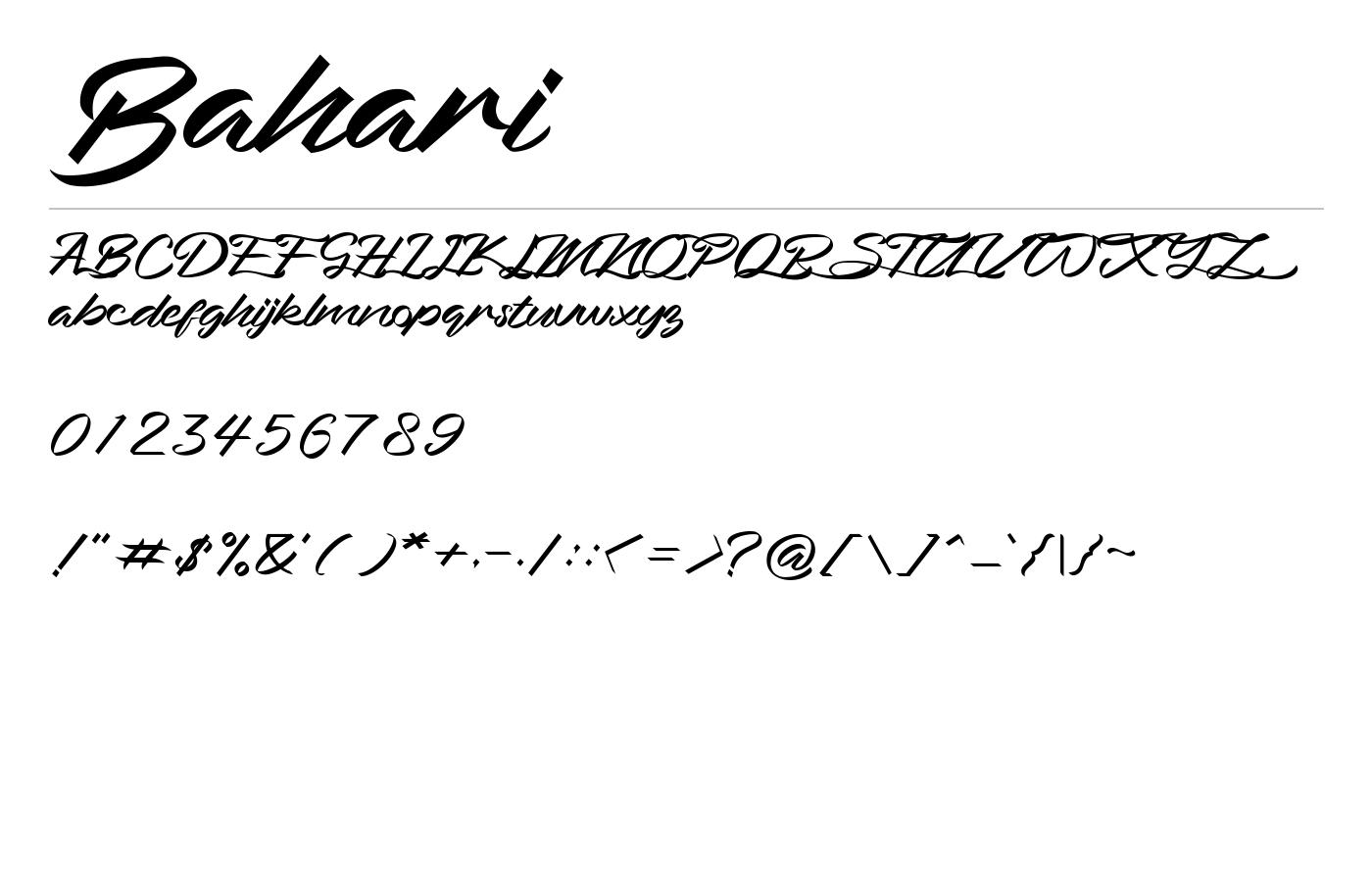
Bahari is a stylish script font featuring smooth, flowing strokes with a medium weight and elegant cursive style. Its refined letterforms and moderate contrast give it a sophisticated yet approachable feel, making it ideal for branding, invitations, and any design that benefits from a graceful, handwritten touch. This font works well in projects seeking a blend of classic charm and modern flair.
Bahari Font
About Bahari Font